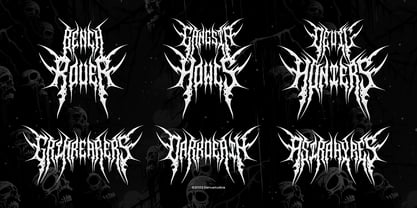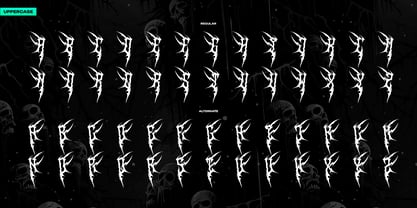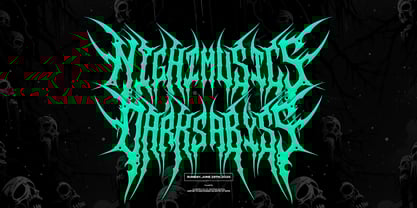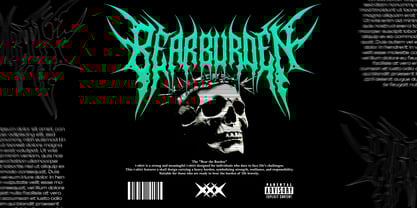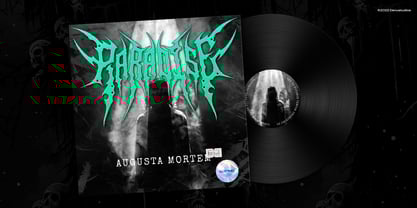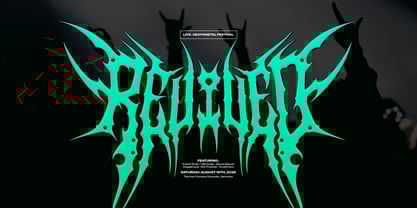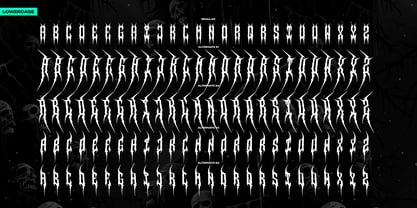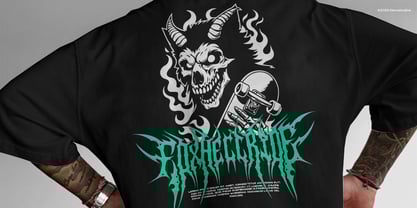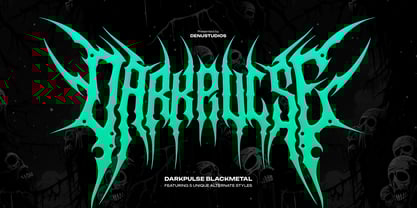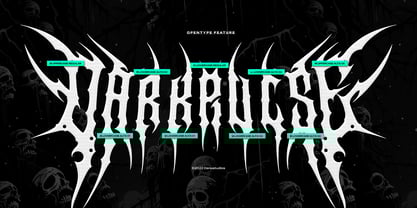
Darkpulse
by Denustudio
The Darkpulse Font Family was designed by Dede Nugraha and published by Denustudio. Darkpulse contains 1 styles. More about this family
Darkpulse | Black Metal Font, from Denustudios, suitable for any projects such as: logos, branding projects, homeware designs, product packaging, mugs, quotes, posters, shopping bags, t-shirts, book covers, name card, invitation cards, greeting cards, label, photography, watermark, special events, and all your other lovely projects that need Black Metal Font a taste.
• Alternate and Ligature
Designers: Dede Nugraha
Foundry: Denustudio